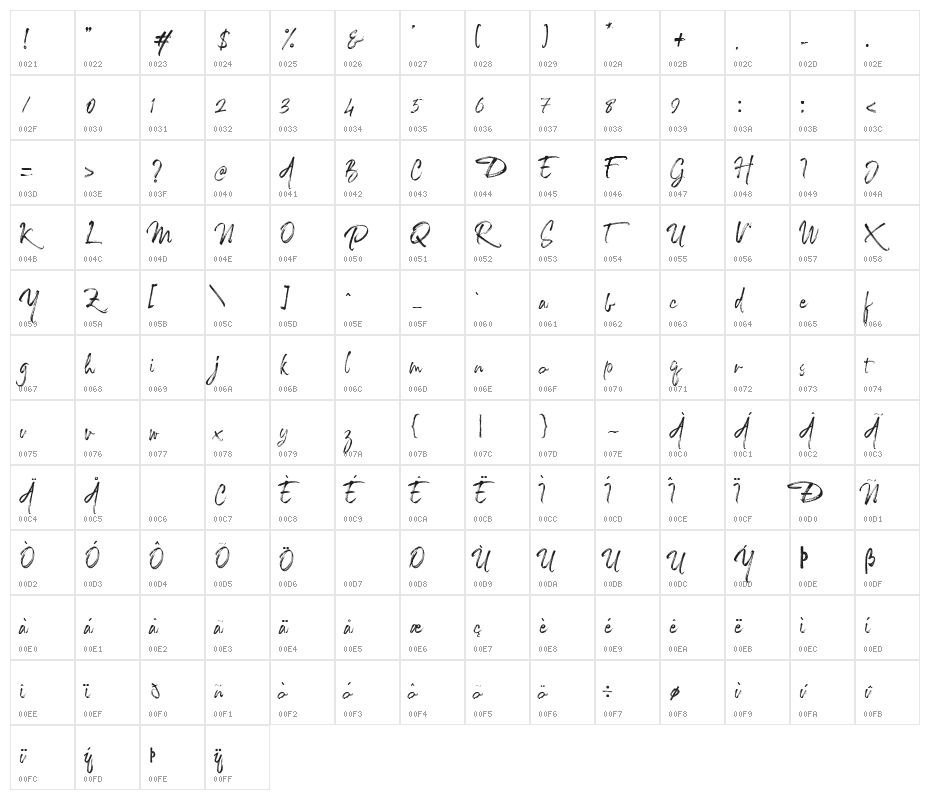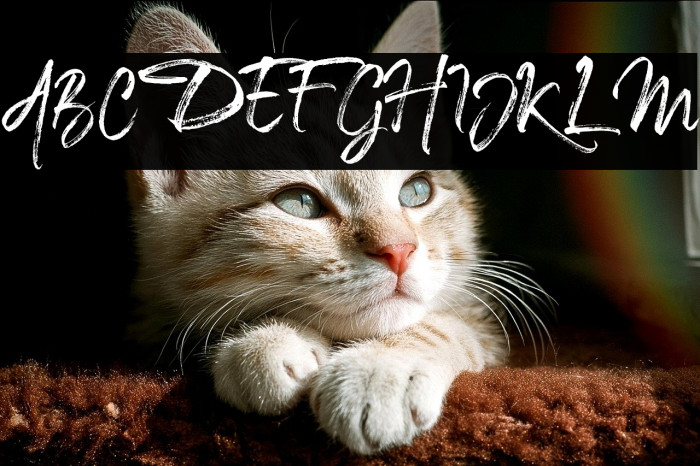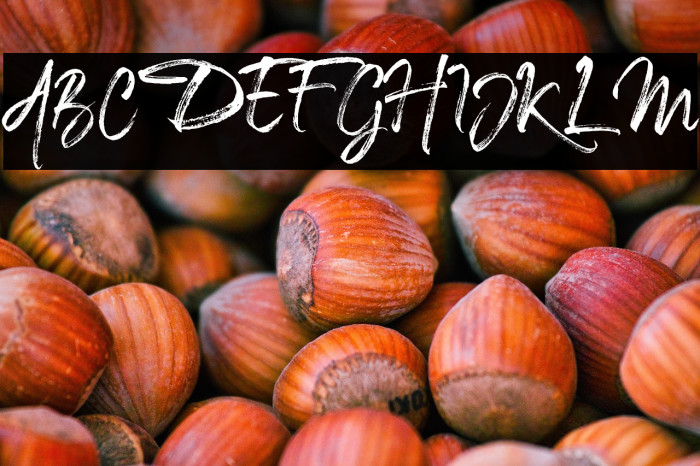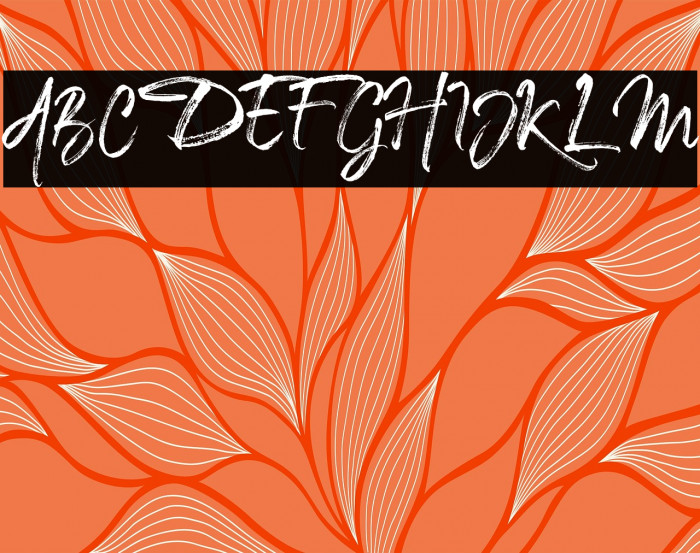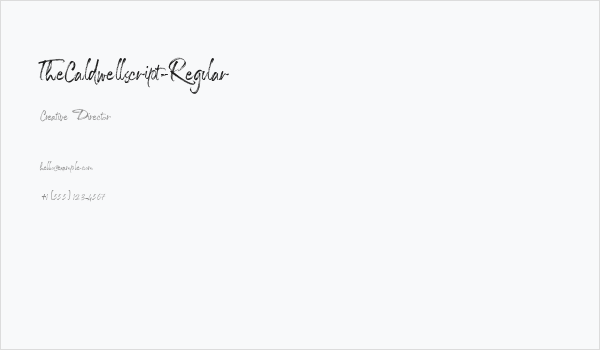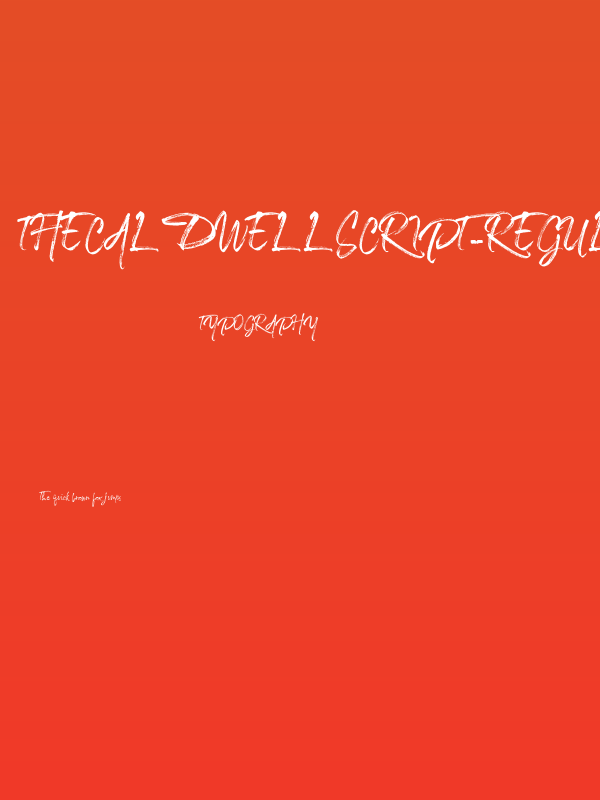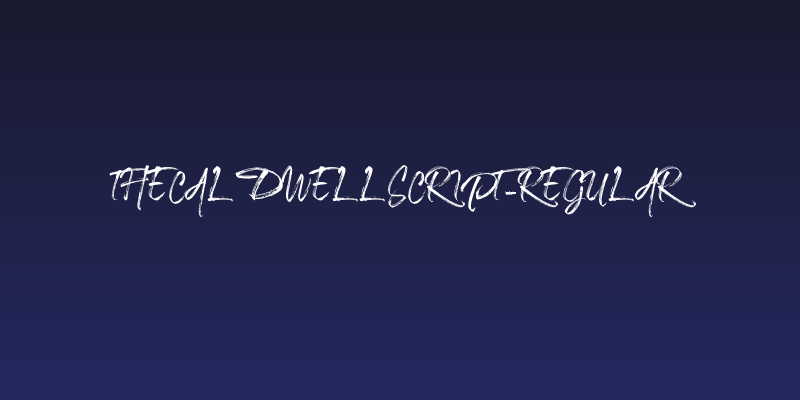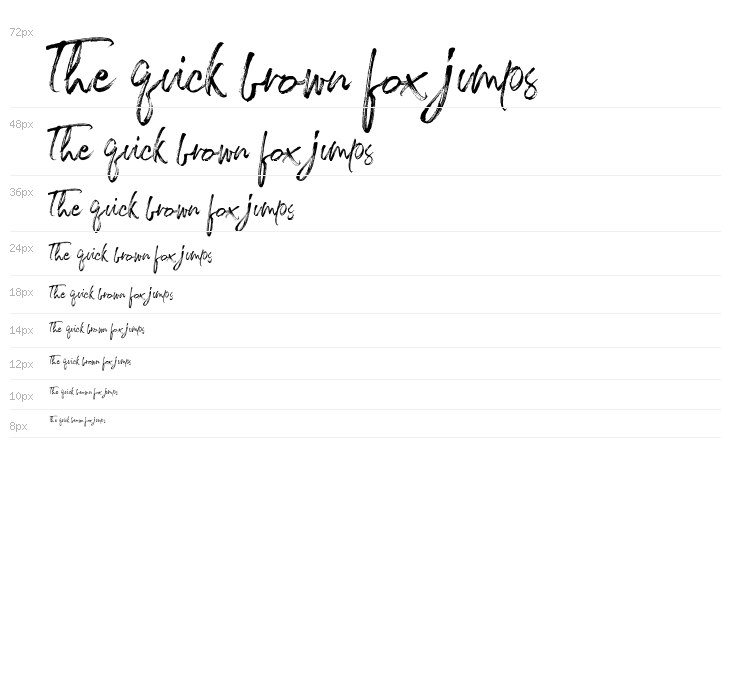
TheCaldwellscript-Regular Font
TheCaldwellscript-Regular Description
This font features a dynamic and expressive script style, characterized by its fluid, brush-like strokes that convey a sense of movement and energy. The letters are connected in a cursive manner, with varying thickness that adds a hand-painted feel. The uppercase letters are bold and prominent, while the lowercase letters maintain a consistent flow, enhancing readability. Numbers and special characters are crafted with the same artistic flair, making them suitable for creative and decorative purposes. The overall appearance is both elegant and informal, perfect for adding a personal touch to any design.
| Use Case | Logos, Invitations, Artistic projects |
| Proposed Projects | Ideal for wedding invitations, greeting cards, branding, and artistic projects requiring a personal touch. |